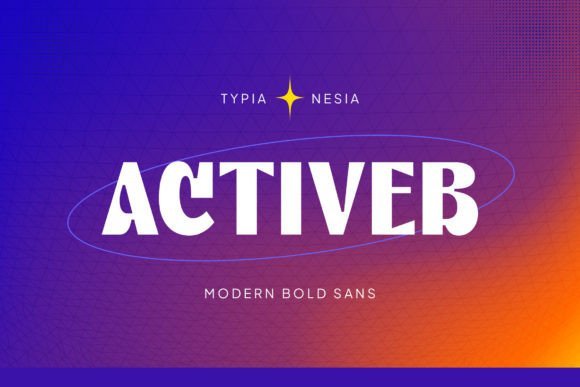
Rev Up Your Designs with the Power of Activeb Font
Remember that moment when you finally nailed the perfect combination of colors, textures, and typography in your design project? It’s a rush, isn’t it? The thrill of seeing your vision come to life and knowing you’ve created something truly special. But what if you could take that excitement to the next level? That’s where Activeb Font comes in – a dynamic font choice designed to inject energy and movement into your designs.
Whether you’re working on a sports-related project, creating music-related content, or developing a startup brand, Activeb Font is the perfect choice. Its bold sans serif typeface commands attention with its strong, clean lines and geometric shapes, making it ideal for headlines, logos, and any other design element where you want to create impact.
Activeb Font Key Features
- Font Family: Activeb is a sans-serif font family designed for digital use. It includes 8 font styles: Thin, Light, Regular, Medium, Bold, Heavy, Black, and Outline.
- Character Set: The font includes a comprehensive character set that supports most languages, including Latin, Cyrillic, and Greek alphabets, as well as a range of punctuation and symbols.
- Resolution: Activeb is optimized for high-resolution displays, making it perfect for use on modern screens, including Retina displays and 4K monitors.
- Unique Characteristics: Activeb’s unique geometric shapes and clean lines make it a versatile font that is both modern and timeless, suitable for a wide range of design applications, from corporate branding to digital interfaces.
Activeb Font Review
Overall, I’m quite impressed with the Activeb Font. It has a modern, dynamic feel that can add a lot of energy to your designs. ✨
- The font’s bold lines and geometric shapes make it perfect for headlines and titles.
- The font’s open and airy feel makes it easy to read, even in smaller font sizes.
- The font’s versatility makes it suitable for a wide range of designs, from digital interfaces to print materials.
- It’s highly legible, making it perfect for body text and captions.
- ⚠️ The font can feel a bit overused, especially in the digital design world.
- ⚠️ The font’s bold lines can make it difficult to use in designs where a more subtle look is required.
Overall, I think the Activeb Font is a great addition to any designer’s toolkit. While it may have some limitations, its modern and dynamic feel makes it perfect for a wide range of designs. With a bit of creativity and experimentation, I think you can achieve some amazing results with this font.
The Activeb font is ideal for creating modern, edgy designs that require a bold and striking look. Some common use cases include:
- Logo design
- Business card design
- Marketing materials
- Branding and identity design
Remember to experiment with different font sizes, colors, and styles to get the most out of the Activeb font.
Alternatives to Activeb Font for Designers